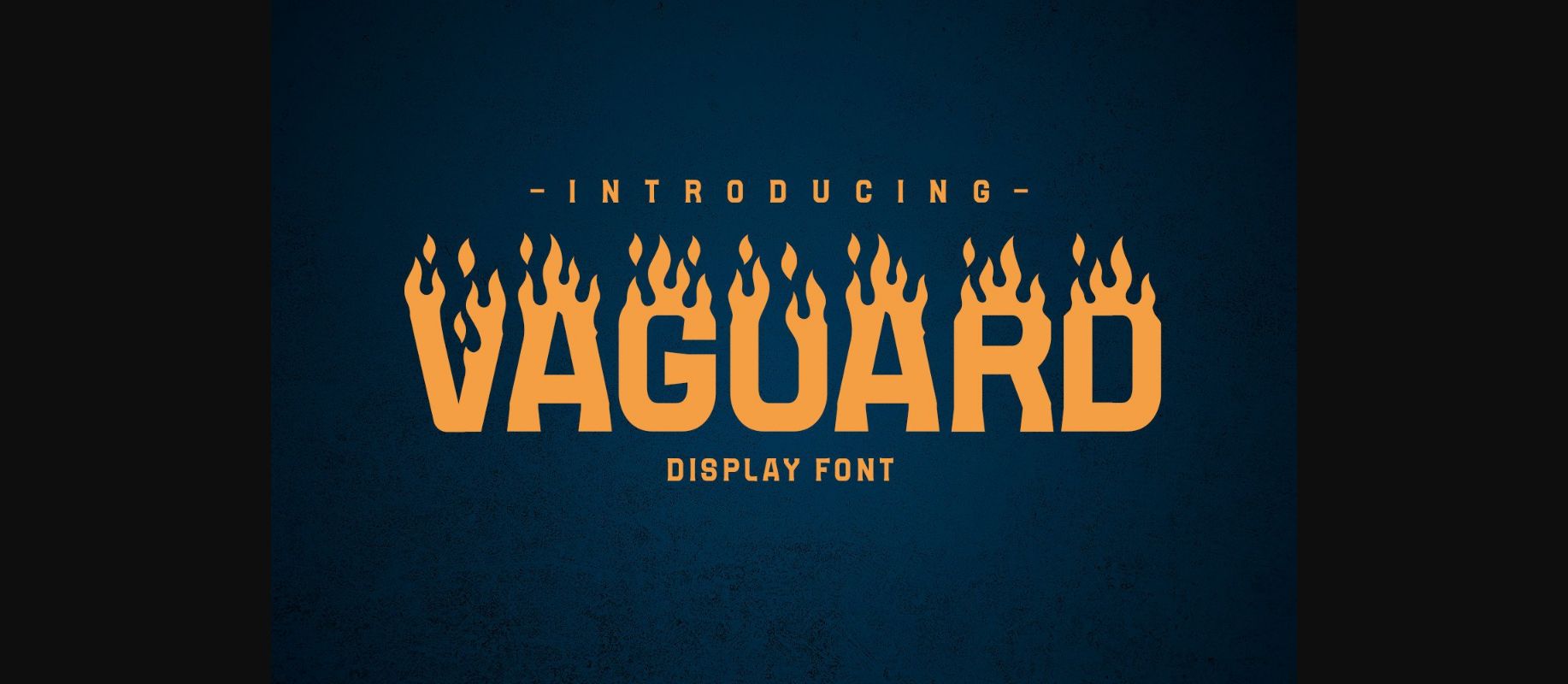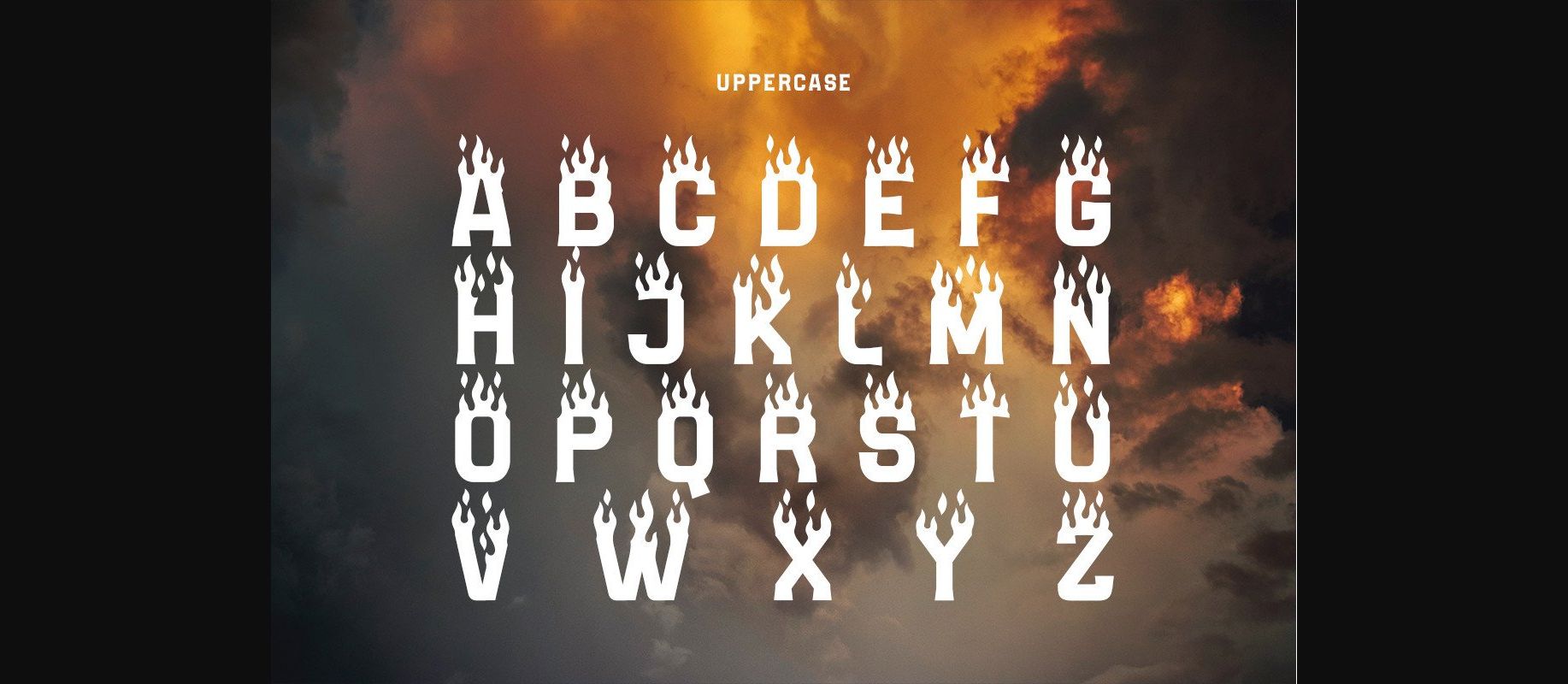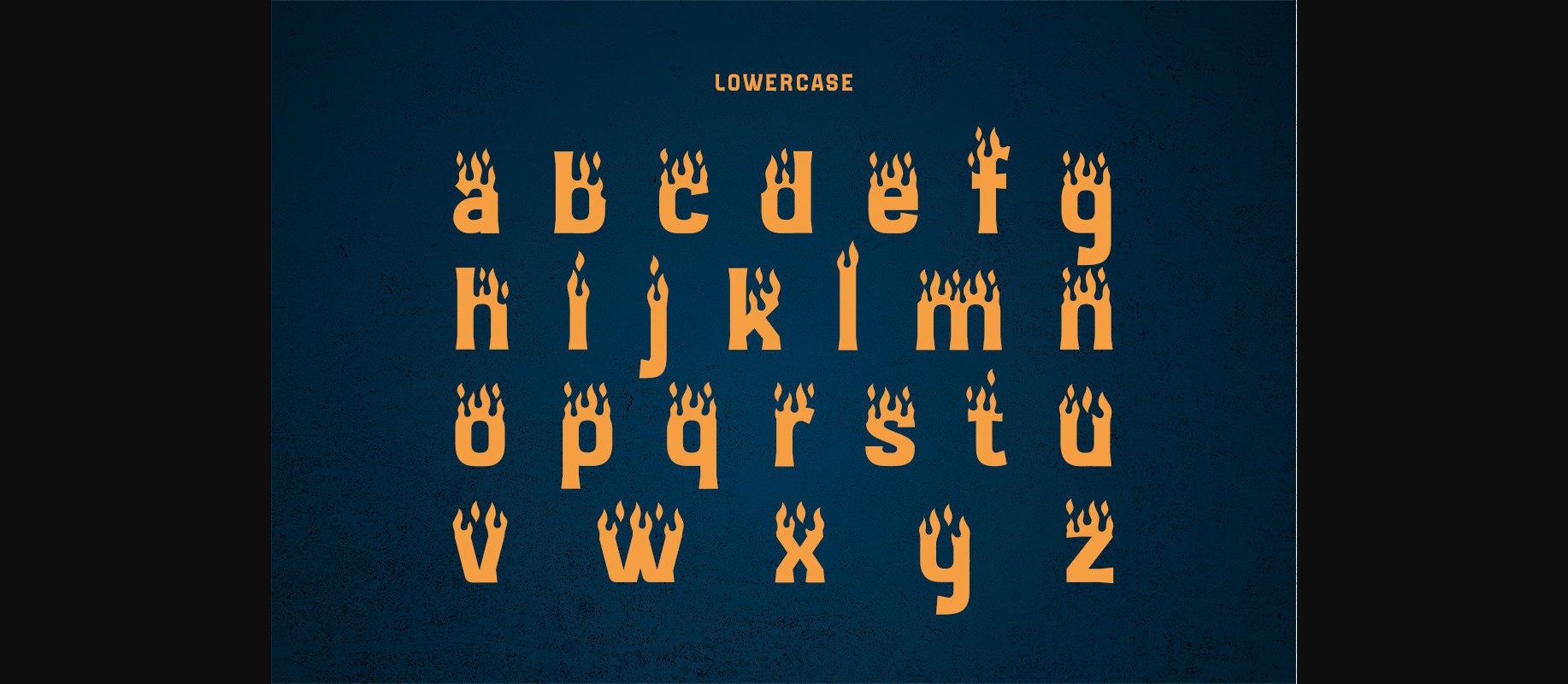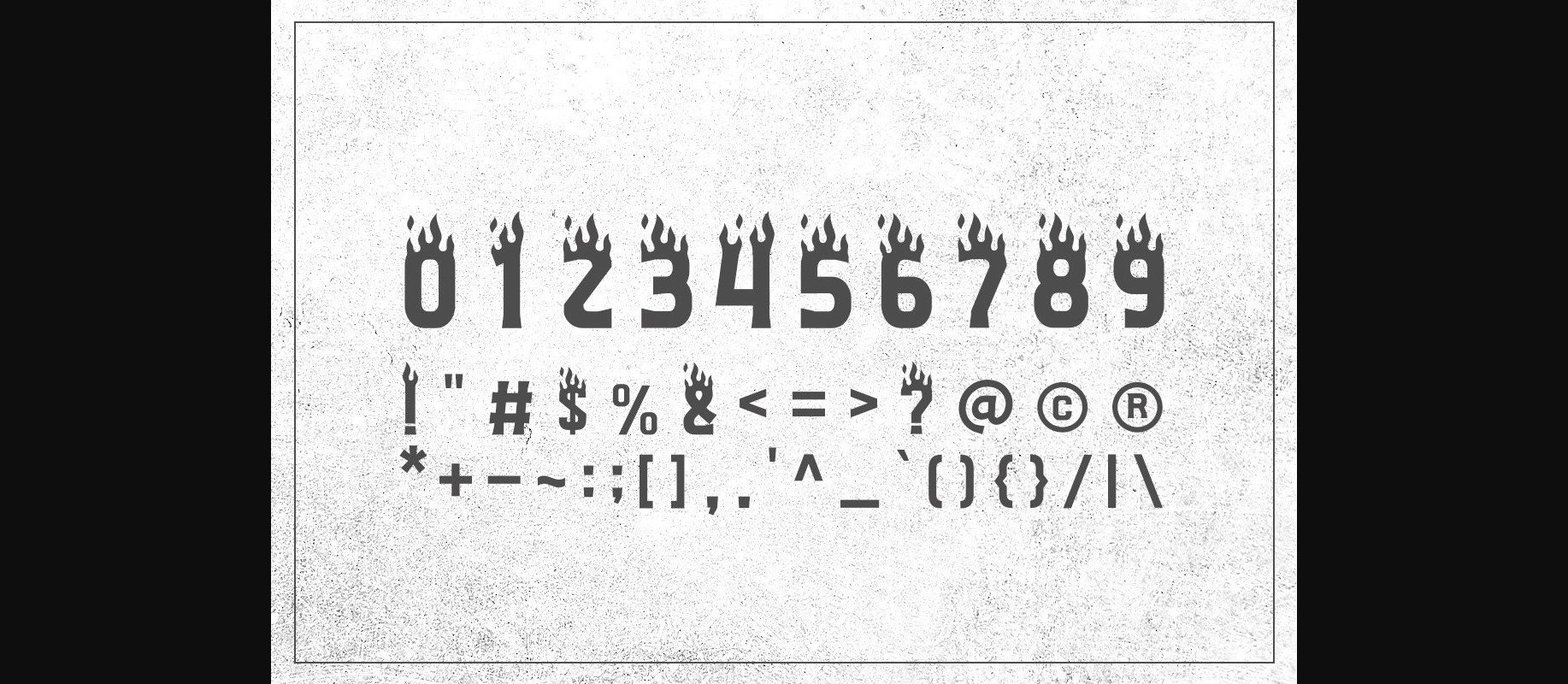
About Vaguard Font
Vagurad is a cool decorative font with burning fire looks!! very suitable for logos, clothing, branding, and others. Very easy to use without the hassle of drawing. Get inspired by its unique feel, and add a lovely charm to your craft projects!